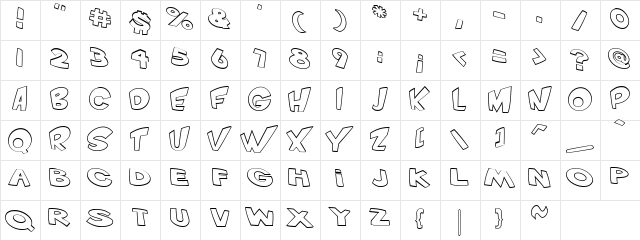
VTC ScreamItLoudOutline Outline
| Designer | WolfB ainX |
Design Context for VTC ScreamItLoudOutline Typeface
VTC ScreamItLoudOutline is built around its visual character rather than neutral utility — its distinctive forms are designed to make an impression at display sizes.
Font Pairing: Pair with a clean neutral sans-serif for body copy to let VTC ScreamItLoudOutline's character lead without overwhelming the composition.
Pro Tip: Use VTC ScreamItLoudOutline exclusively at display sizes — it was designed to be seen, not read at length. Let a neutral companion handle body copy.